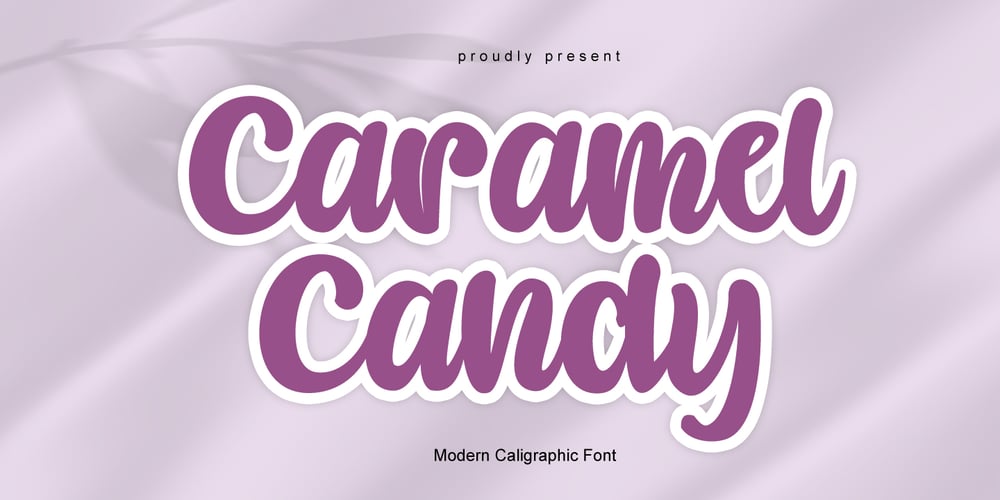
Caramel Candy
Caramel Candy font
Caramel Candy Font Family was designed by Daddi Daryawan and published by Creativework Studio. Caramel Candy contains 1 styles and family package options. Caramel Candy is a flowing handwritten font, described by an elegant touch, perfect for your favorite projects. Fall in love with its incredibly distinct and timeless style and use it to create spectacular designs!